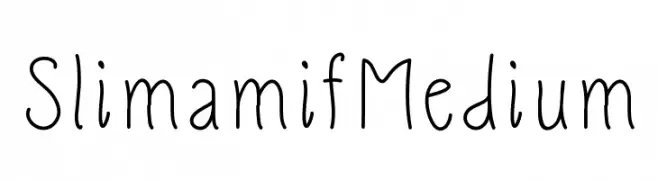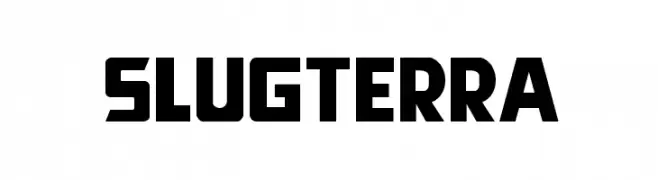
( Dimka.com - dimka.com/fonts )
A thin, whimsical handwritten font with a playful and informal style.
( Dimka.com - dimka.com/fonts )
A playful, handwritten font with tall, slender letterforms and slight stroke variation.
( InSide Head )
A playful, informal handwritten font with uneven strokes.
( HackFonts - hackfonts.blogspot.com.co/ )
A bold, geometric font with strong angles and a modern look.
( Explogos - www.explogos.com )
A modern, geometric sans-serif font with clean lines and balanced spacing.
( Kate Avino )
A decorative font with abstract, symbolic glyphs and artistic design.
( GraphicsBam - www.creativefabrica.com/ref/186/ )
A bold, distressed font with a grunge aesthetic.
( Katz Fontz - katzfonts.50megs.com/kg.html )
A festive font with uppercase letters in snowmen and lowercase in snowflakes.
( Emberlorna )
A playful, handwritten font with a whimsical and casual style.
( Genshichi Yasui - www.jttk.zaq.ne.jp/babwp701/hpfont/font.html )
A bold, pixelated font with a retro digital style.